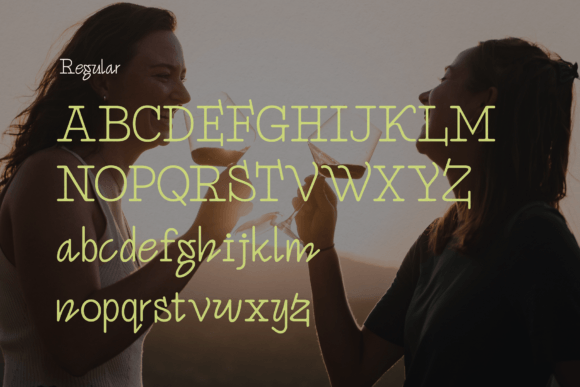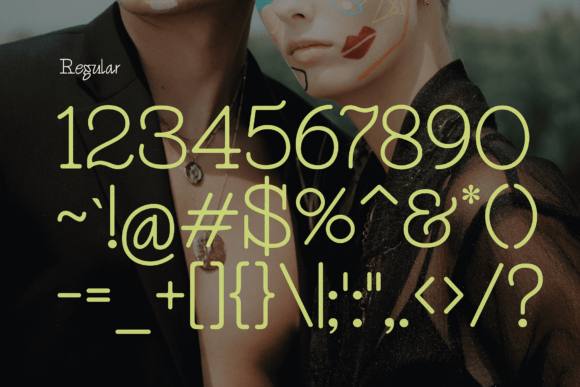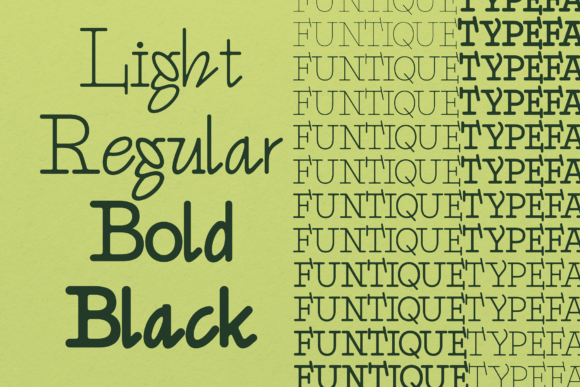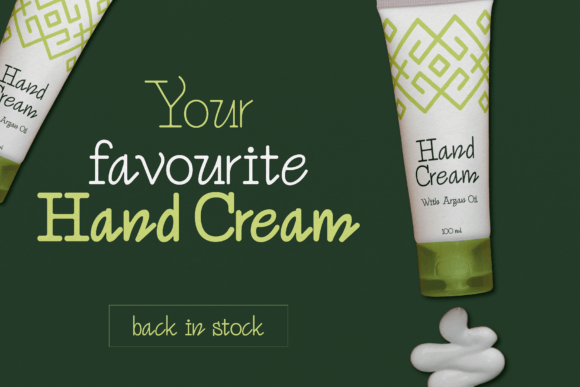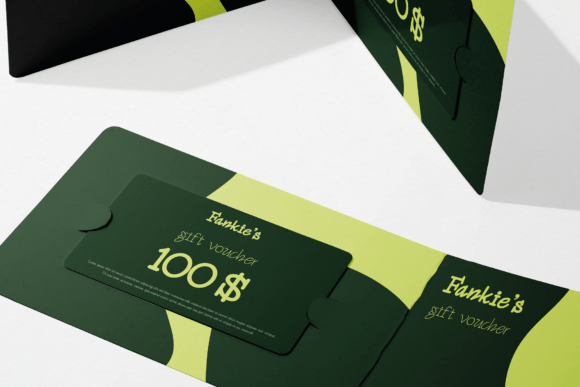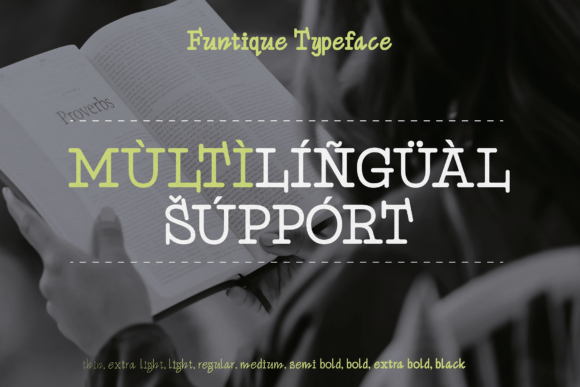
The Font that Stole my Heart: Funqtique
I still remember the day I stumbled upon Funqtique while working on a project for a luxury brand. I had been searching for the perfect font for hours, trying out different serif and sans-serif options, but nothing seemed quite right. That was until I saw Funqtique – a dazzling modern serif typeface that effortlessly blended classic elegance with contemporary flair. I was immediately hooked!
- ✨ **Versatility**: With over nine distinct weights, Funqtique provides an exceptional range of options, from ultra-light and airy to bold and commanding.
- ✅ **Multilingual capabilities**: This font is a game-changer for global brands and designers who work with clients from diverse linguistic backgrounds.
- 💫 **Elegant and sophisticated**: Funqtique’s beautiful, well-crafted characters bring a touch of sophistication to any project.
- 📚 **Legibility**: This font is a dream to read, even in smaller sizes.
While Funqtique is an amazing font, there are a few things to keep in mind:
- 🤔 **Limited availability of certain characters**: Some users have reported that certain special characters or glyphs are not available in Funqtique.
The Story Behind Funqtique
Funqtique was designed with the goal of creating a modern serif font that would blend the best of both worlds – classic elegance and contemporary flair. The designer, inspired by the works of typography legends like Didot and Bodoni, set out to create a font that would be both versatile and sophisticated.
| Font Name | Funtique Font |
| Author | HipFonts |
| What is the x-height of Funqtique? | Funqtique has a relatively high x-height, making it easy to read in digital and print formats. |
| Is Funqtique suitable for body text? | Yes, Funqtique is designed to be legible and can be used for body text, especially in larger sizes. |
| Does Funqtique support OpenType features? | Yes, Funqtique supports OpenType features, including stylistic alternates, glyphs, and more. |